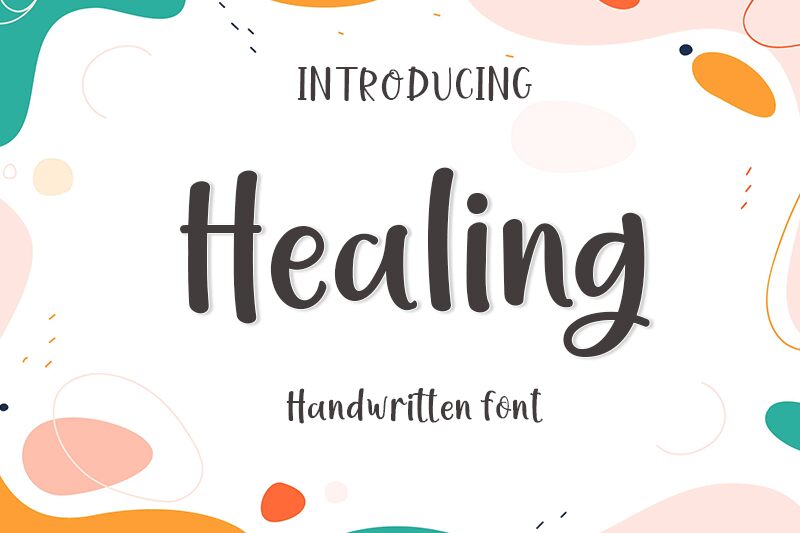
Healing, a captivating handwritten font by Amarlettering - Takiy, brings a touch of elegance and authenticity to any project. With its fluid strokes and graceful curves, this font is perfect for wedding invitations, love letters, and heartfelt personal messages. Its versatile semi-bold typeface allows it to shine in branding projects such as beauty salons, wellness centers, and natural products. The Healing font evokes a sense of tranquility and serenity, making it an ideal choice for yoga studios, meditation apps, and holistic therapy websites. Let Healing bring soothing vibes to your designs!
Healing